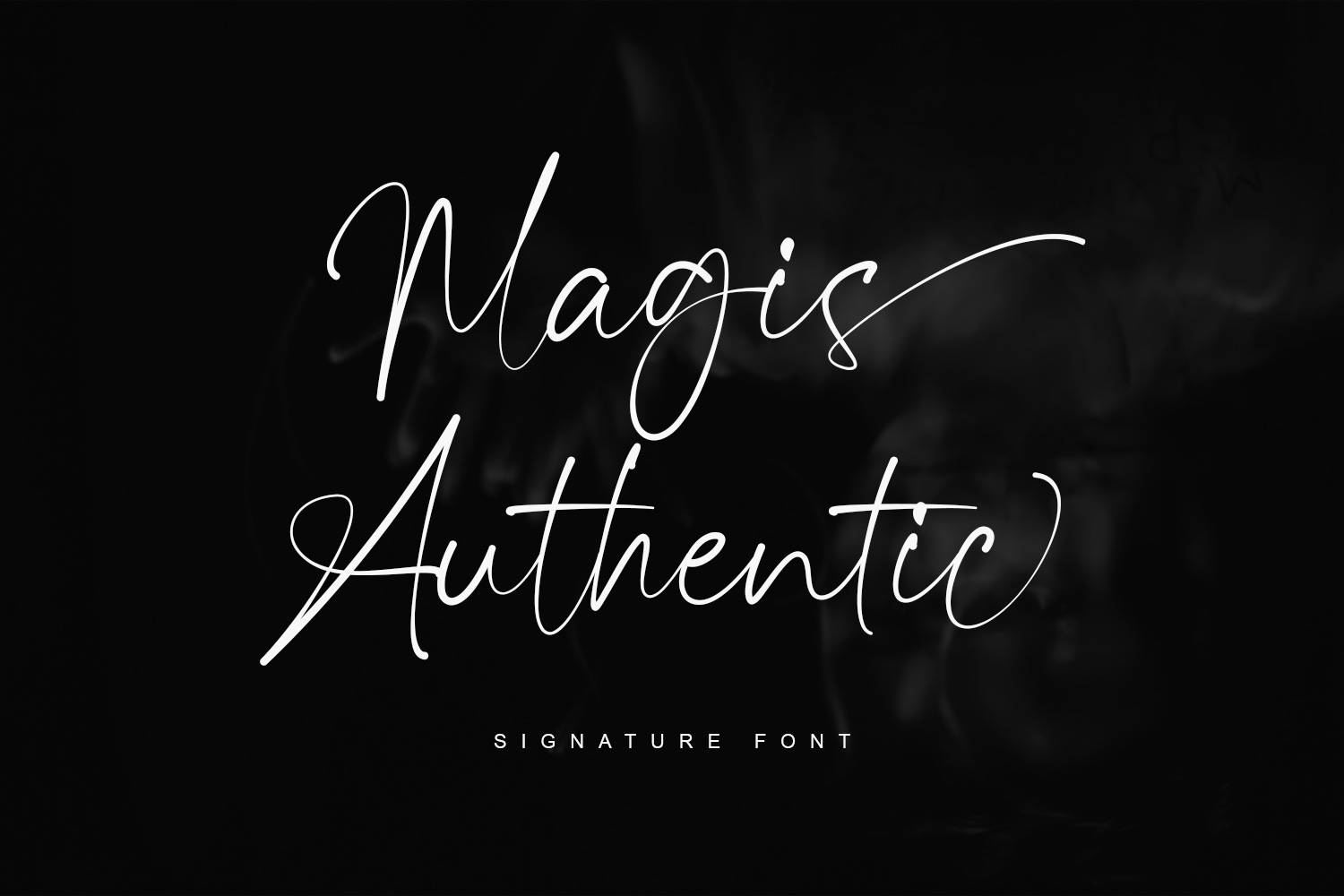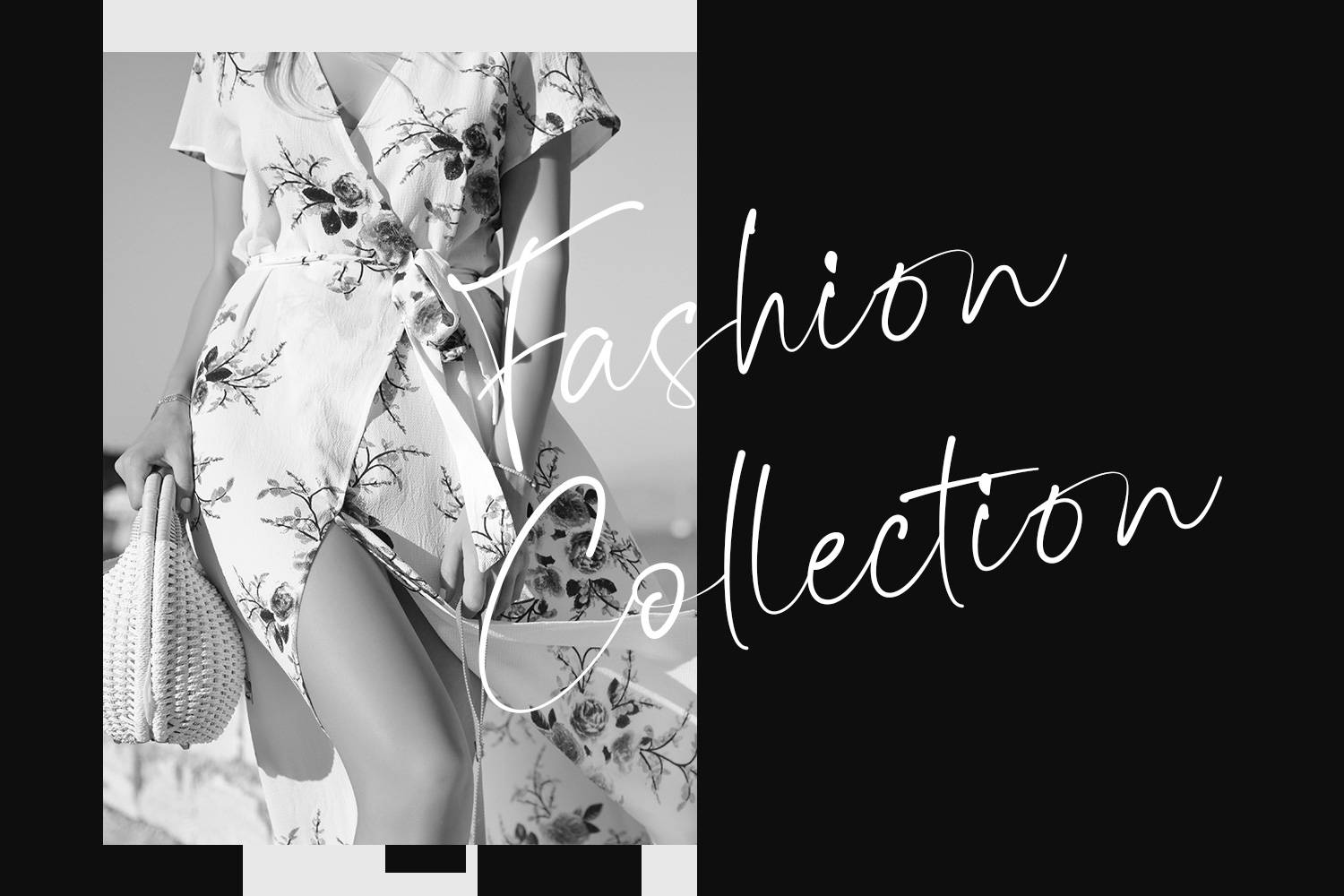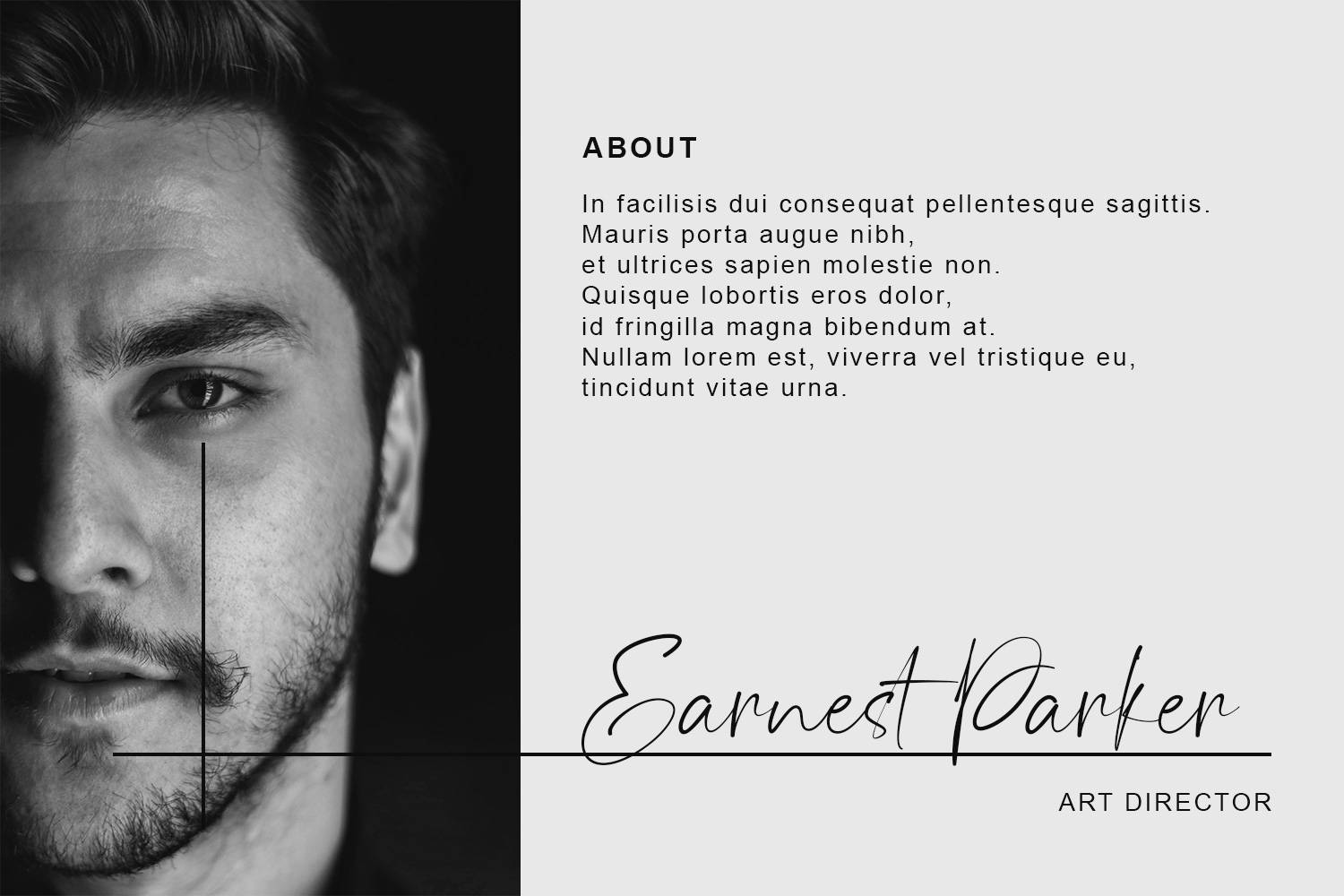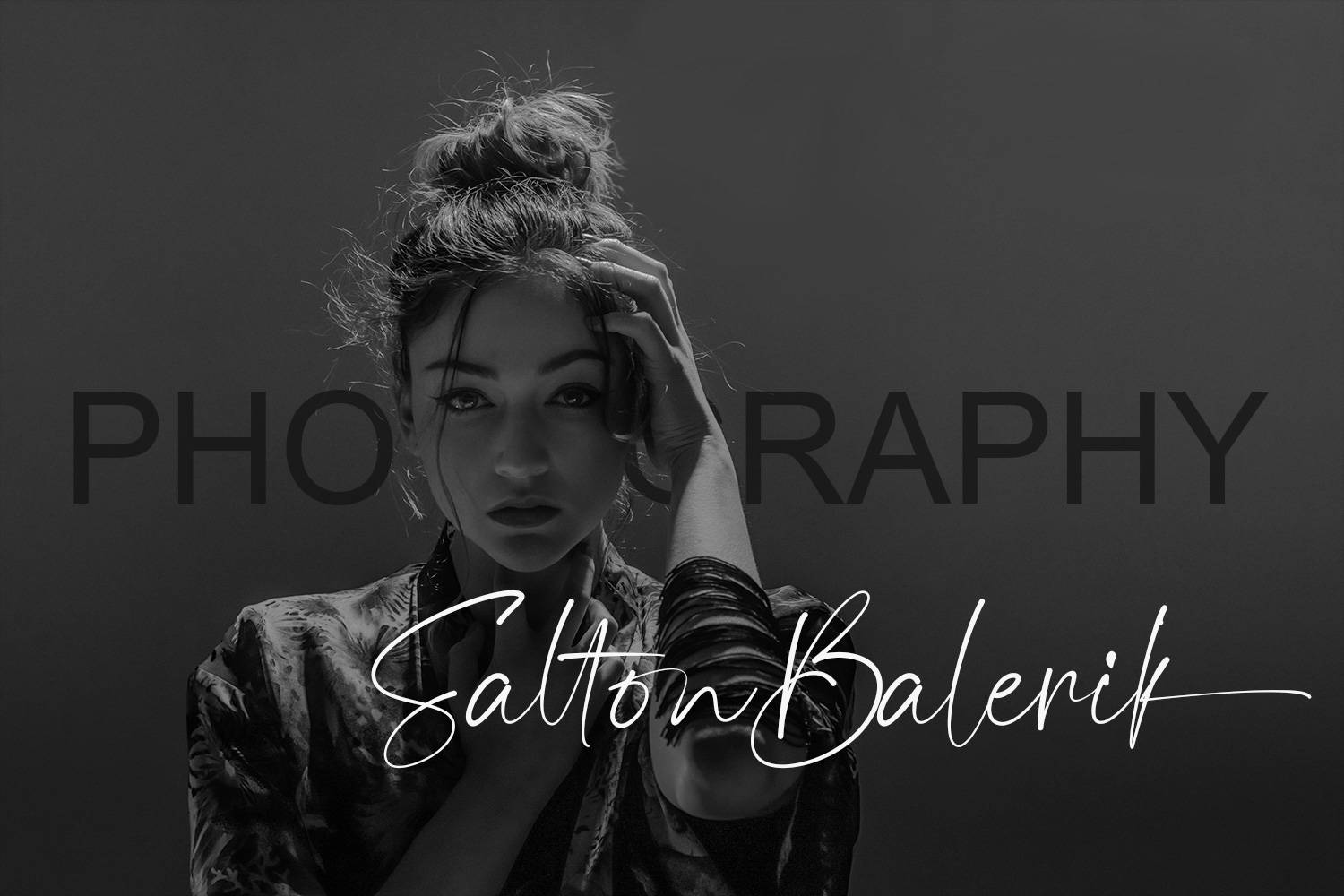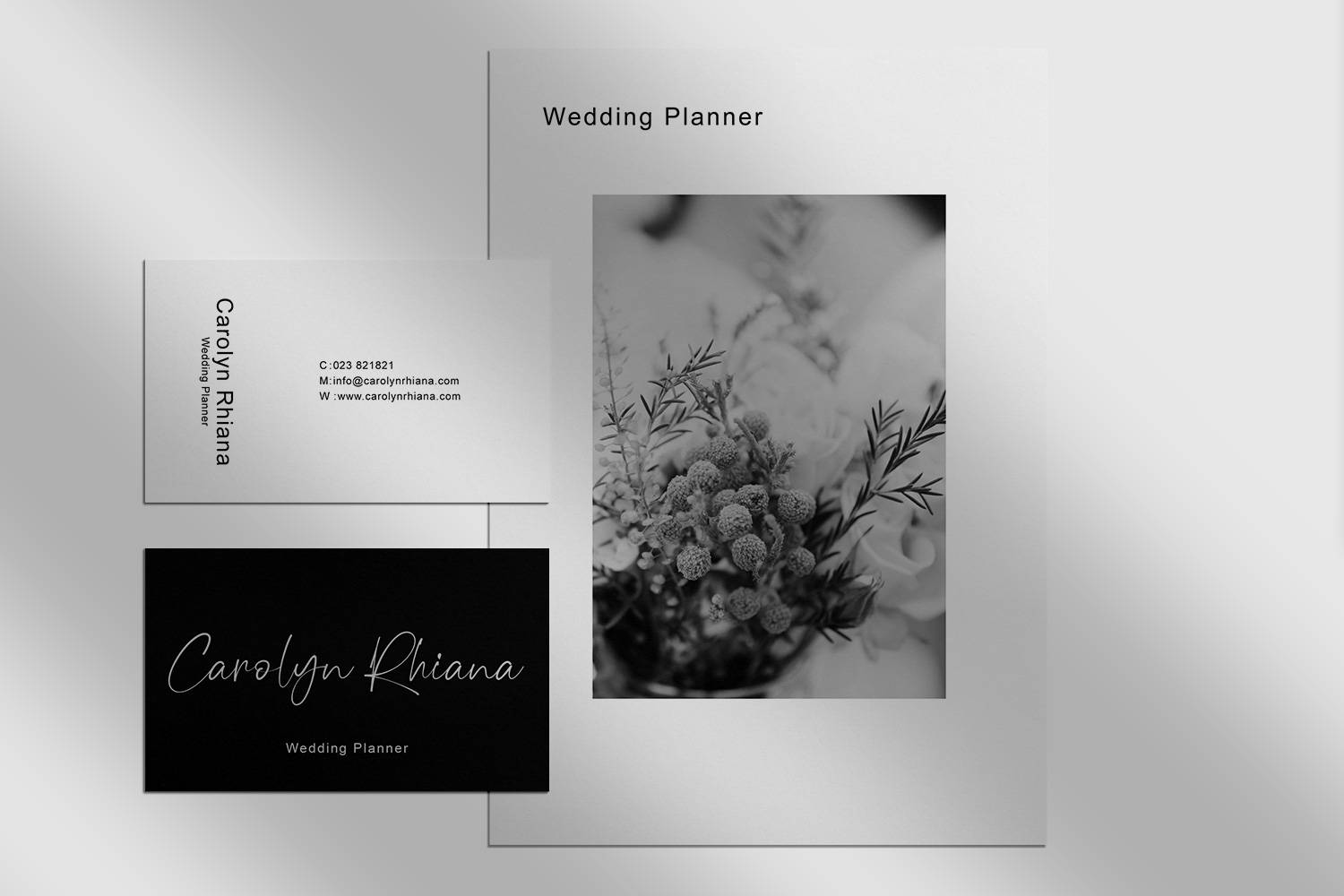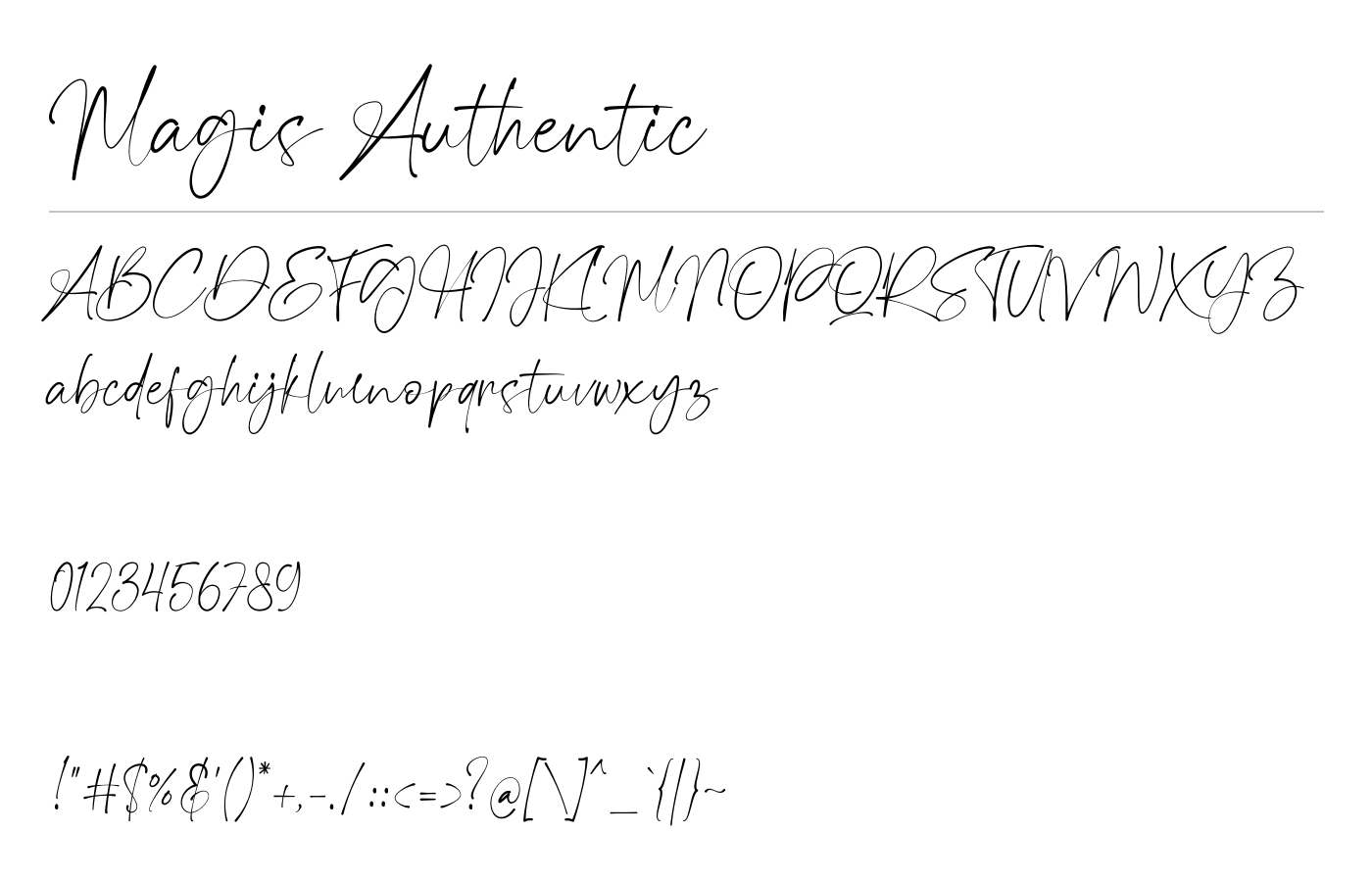
Magis Authentic is a delicate, high-contrast script font with a natural, handwritten feel, characterized by its elegant, flowing strokes and slender letterforms. Its airy and sophisticated style makes it perfect for personal branding, invitations, and fashion-related designs where a refined yet approachable touch is desired. This font works beautifully in headlines or display uses where a sense of authenticity and grace is key.
Magis Authentic Font
About Magis Authentic Font
| Font family | Magis Authentic Font |
| Designer | Lemonthe.Dwi Ahidian |